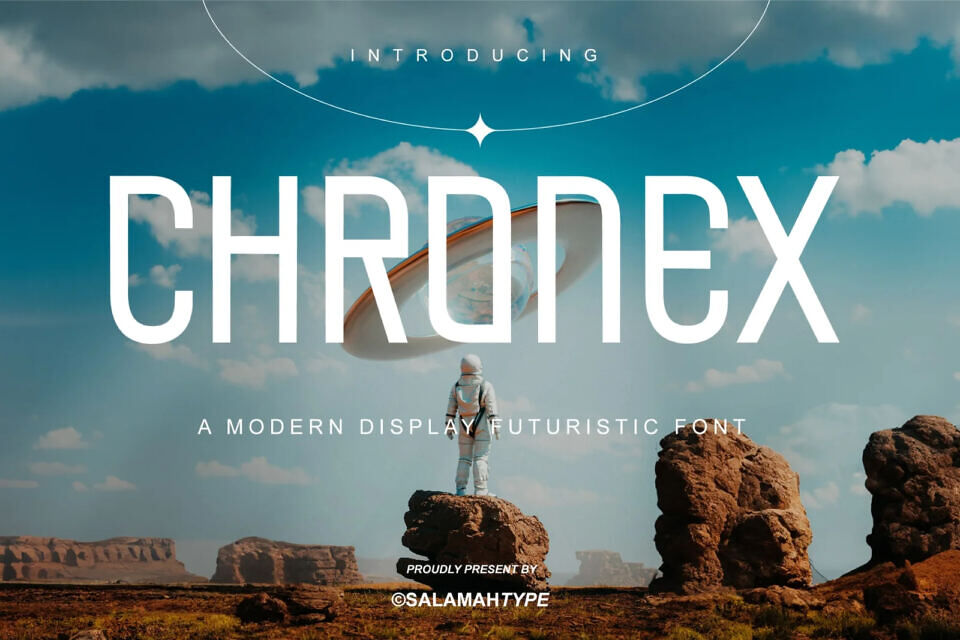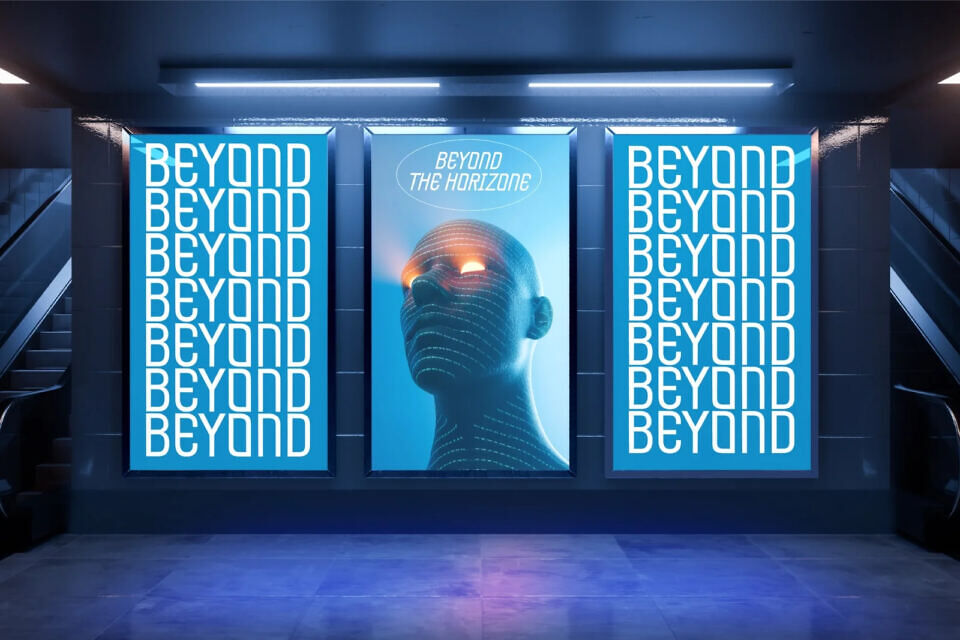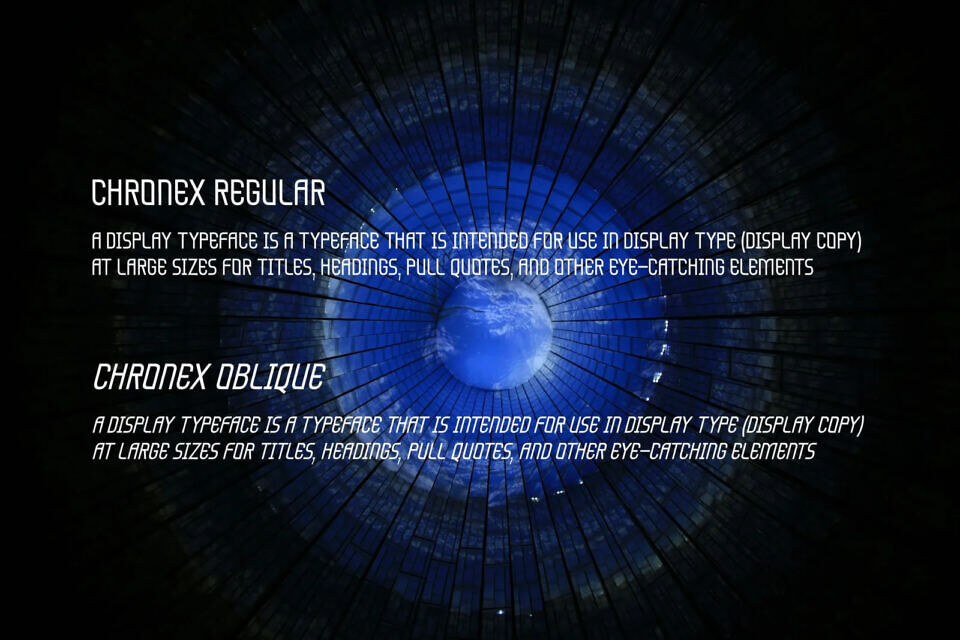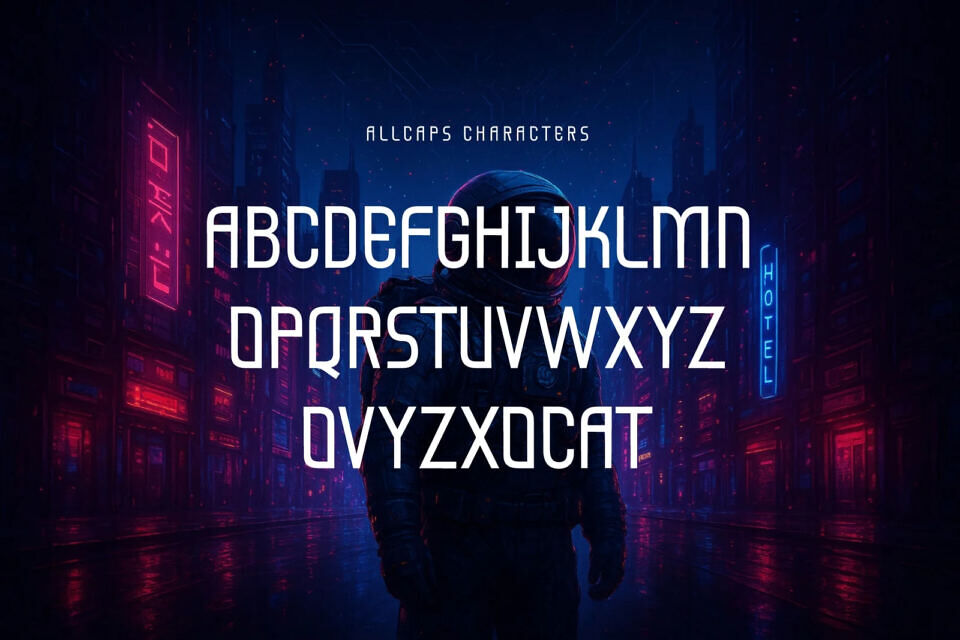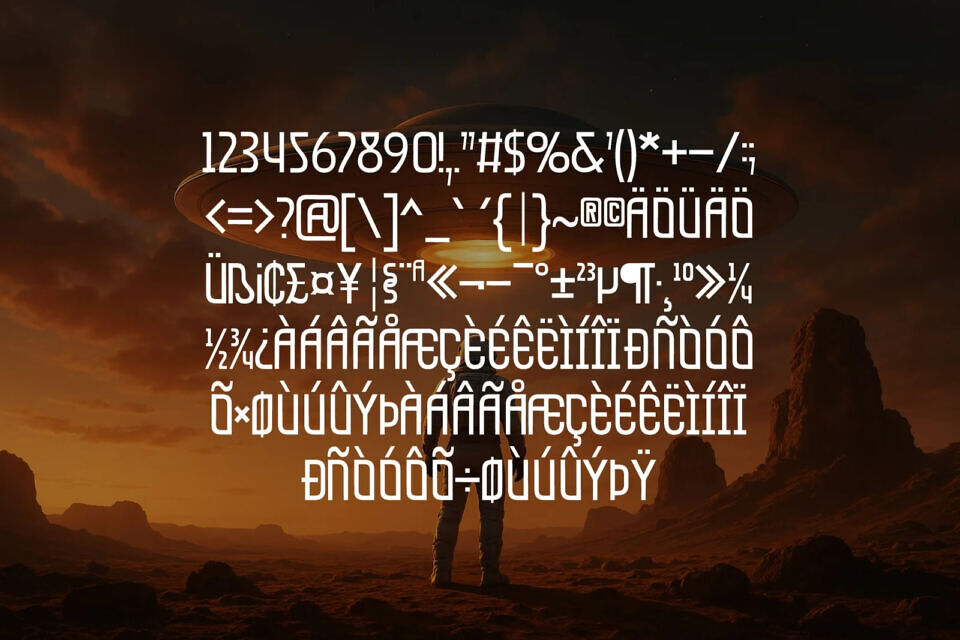
Chronex Font
Chronex is a bold and sleek futuristic display font designed for modern projects that demand innovation and style. With its sharp lines, geometric curves, and clean structure, Chronex is perfect for sci-fi themes, space exploration designs, tech branding, gaming, and digital interfaces.
Whether you’re crafting a movie poster, a cutting-edge logo, or stylish editorial layouts, Chronex brings a visionary feel to every project. Its modern aesthetic makes it versatile for both print and digital use.